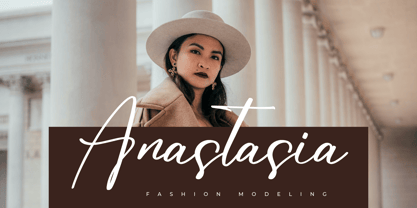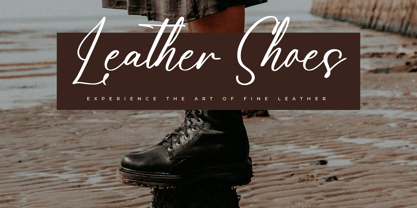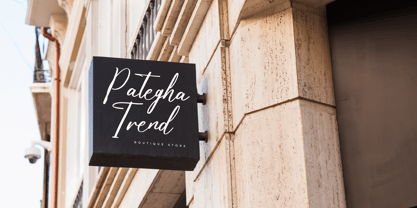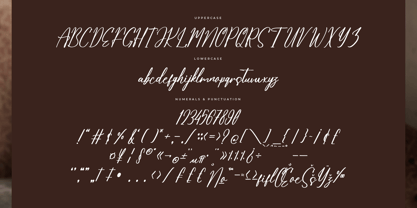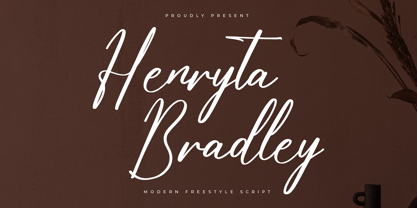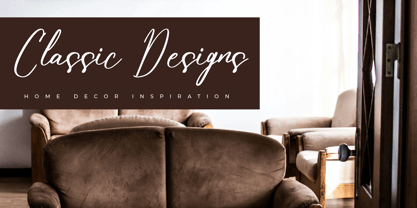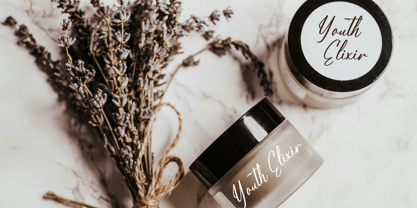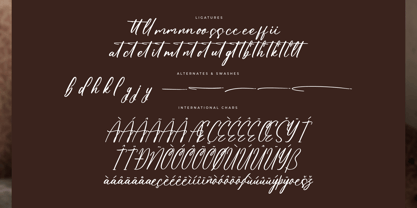
Henryta Bradley
Henryta Bradley is a dazzling script font exuding elegance and sophistication. Its graceful strokes and intricate details captivate the eye, making it perfect for wedding invitations, branding, and elegant designs. With its timeless appeal and delicate curves, this font adds a touch of luxury to any project.